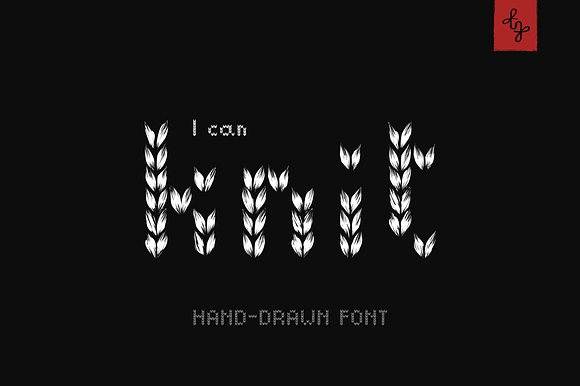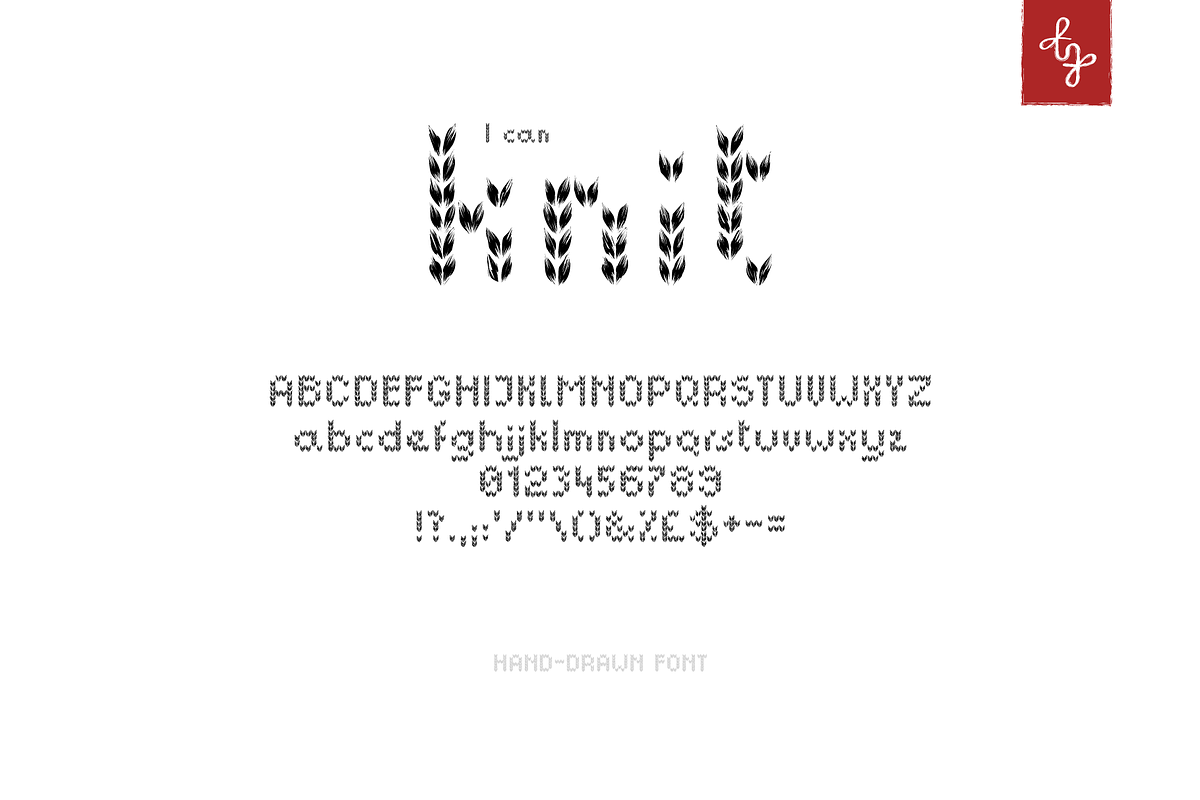
I Can Knit | hand-drawn font
As a little girl I enjoyed knitting and drawing. My I Can Knit font is a combination of both: it is hand-drawn and inspired by cosy winter shawls and Christmas sweaters (not the ugly ones though). Enjoy!